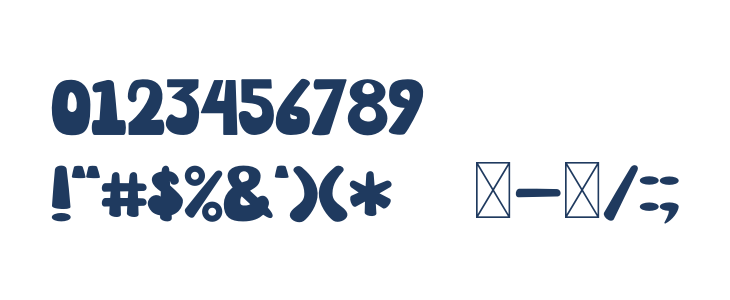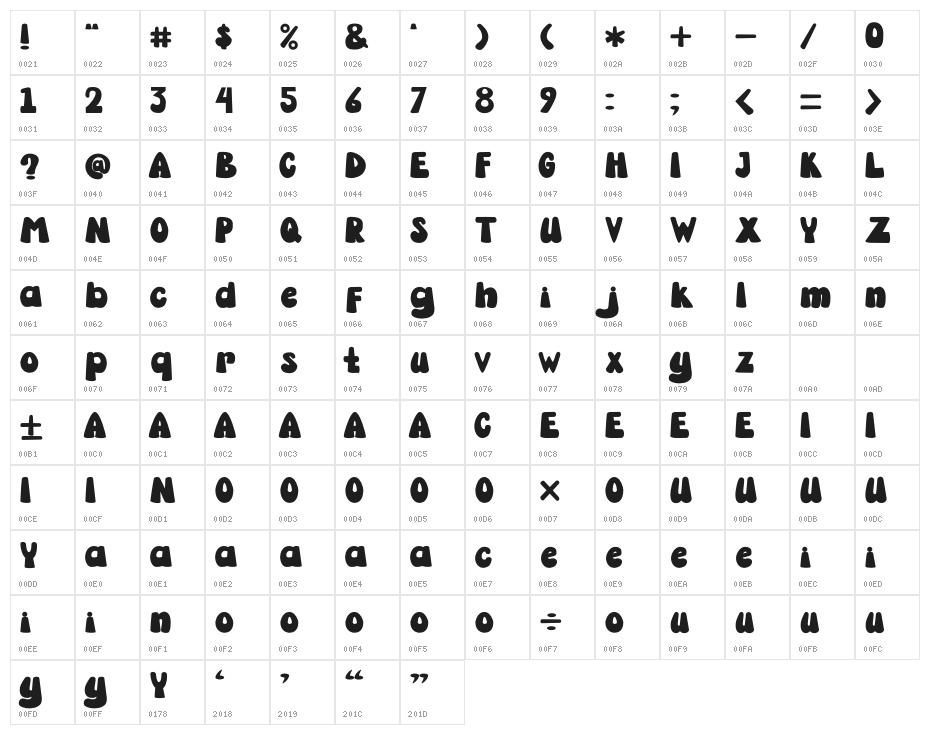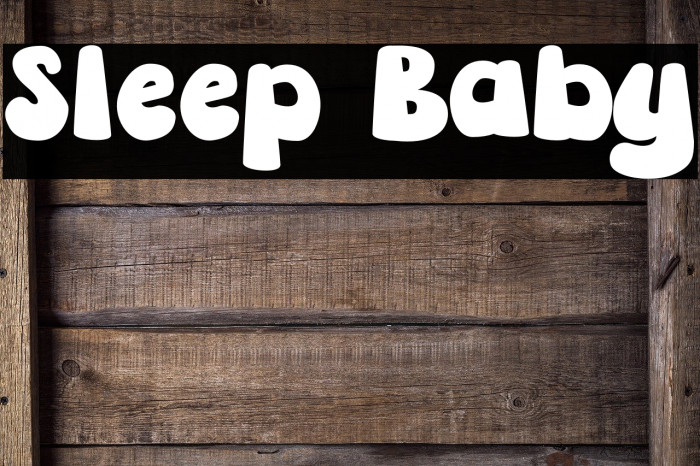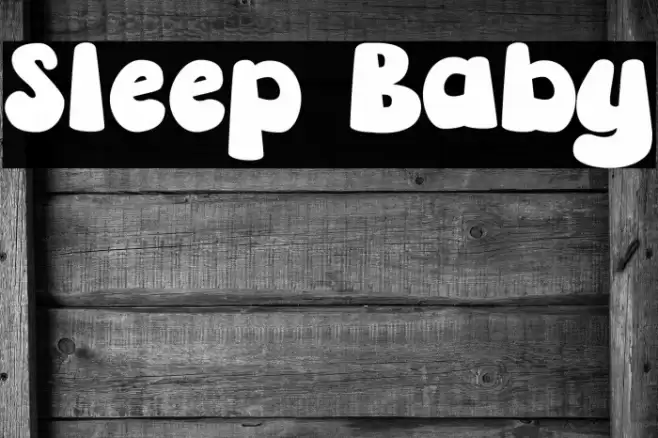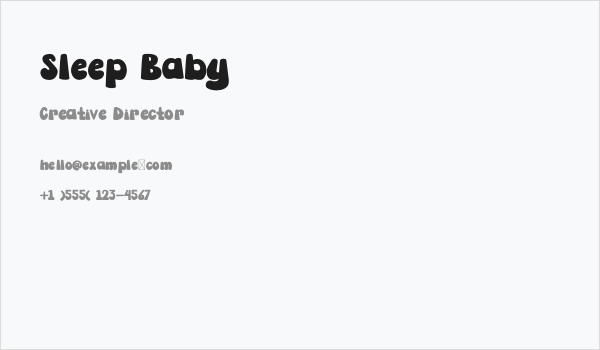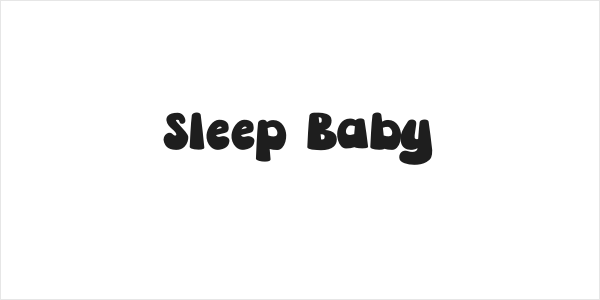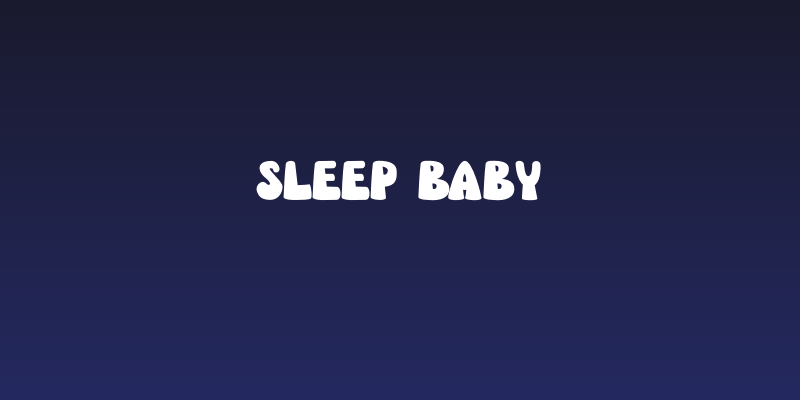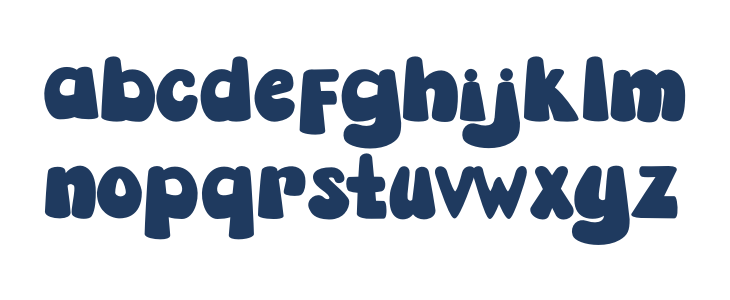
Sleep Baby Font
Sleep Baby Description
This playful and bold font features rounded, chunky letters that convey a sense of fun and whimsy. The characters are designed with a consistent thickness, giving them a uniform appearance that is both approachable and friendly. The uppercase and lowercase letters maintain a cohesive style, with slightly exaggerated curves and soft edges that enhance the font's playful nature. The numbers and special characters are equally bold and rounded, ensuring readability and maintaining the overall aesthetic. This font is ideal for projects that require a touch of humor and creativity.